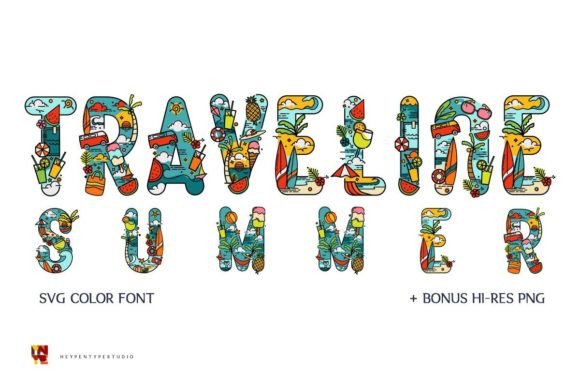
Traveline Summer: A Playful Color Font for Your Vacation Vibes
There's a certain magic to summer. It's the warmth of the sun on your skin, the vibrant hues of a sunset over the ocean, and the carefree energy of a long-awaited vacation. Capturing that feeling in a design project can be challenging, but the right typography makes all the difference. Enter Traveline Summer, a display font that doesn't just spell out words—it embodies a season. This isn't your average typeface; it's a playful, color font with a vintage tone and a summer palette baked right into its character set, designed to instantly transport your audience to their happiest, sunniest memories.
More Than a Font: A Built-In Color Palette
What sets Traveline Summer apart is its nature as an OpenType-SVG color font. This means the color you see in the preview is part of the font file itself. When you type, each letter arrives with its own unique, multi-colored design—think warm oranges, deep teals, sunny yellows, and sandy neutrals blended in a retro-inspired pattern. This eliminates the need to manually add gradients or textures to your lettering. For a small business owner creating a logo for a beachside cafe or a designer crafting a poster for a summer music festival, this feature provides an instant, cohesive visual style. It’s a premium font asset that does double duty, offering both character and color in one package.
This unique characteristic makes it an incredibly efficient design tool. Instead of searching for a display font and then separately sourcing a summer color palette, you get a harmonized system. The vintage tone prevents the colors from feeling overly childish, giving it a sophisticated yet playful edge perfect for branding, merchandise, and editorial layouts where a specific mood is paramount.
Where Vacation Typography Truly Shines
The true value of a creative font like Traveline Summer is measured in its application. Its bold, decorative nature makes it a specialist, not a generalist. It’s built for headlines, logos, and short bursts of text where maximum impact is needed. Here’s where it can make your project look incredibly awesome:
Practical Tips for Using a Display Font
With great personality comes great responsibility. A font like Traveline Summer demands thoughtful implementation to ensure it enhances rather than overwhelms your design. First, always consider readability. This is a display typeface, meant for short, impactful text. Using it for paragraphs would be a strain on the eyes. Reserve it for titles, subheadings, and call-to-action phrases where its unique style can be appreciated at a glance.
Next, master the art of font pairing. The goal is balance. Pair Traveline Summer with a simple, neutral companion font. A clean sans-serif like Montserrat or a classic serif like Playfair Display can provide a calm counterpoint, letting the summer font's vibrant personality take center stage without competing for attention. Test your pairings in the context of your project to see what feels right.
Capturing the Essence of Your Project
Choosing a font is a strategic decision that communicates tone, personality, and context. Traveline Summer is more than just a set of letters; it's a design shortcut to a specific, joyful aesthetic. It helps establish visual consistency across all your summer-themed materials, reinforcing brand recognition through a distinctive and memorable look. By aligning your typography with the emotional core of your project—whether it's relaxation, adventure, or celebration—you create a more professional and engaging presentation for your audience.
Ultimately, the power of a font like this lies in its ability to evoke a feeling. It’s a tool for storytellers, marketers, and creators who want to infuse their work with the unmistakable spirit of summer. When your visuals match your message, you don't just capture attention—you create an experience. So, if your next project calls for a dose of sunshine and vintage charm, let your typography do the talking. Explore the possibilities and see how the right typeface can set the perfect tone for your creative vision.